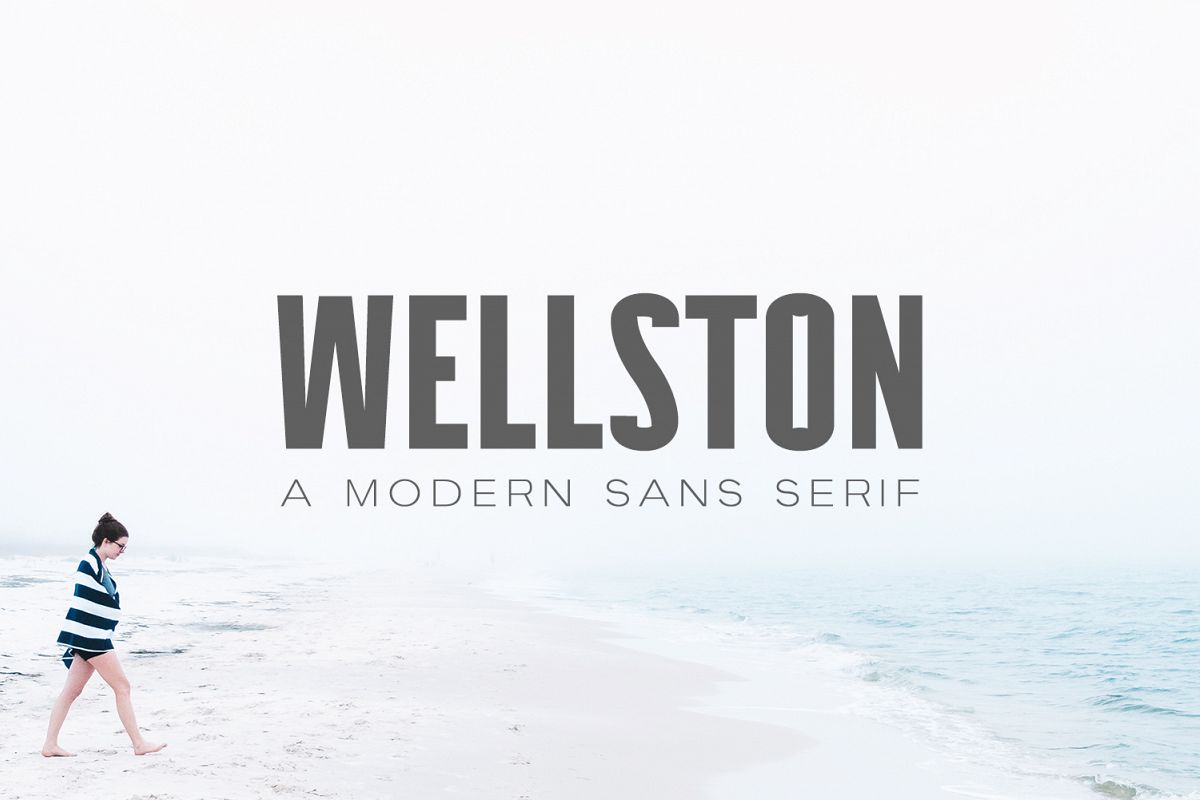
Wellston Modern Sans Serif Font Family
Wellston Modern Sans Serif Font is a strong and charming modern sans serif font. It comes with 12 beautiful weights. It will be best for logos, texts, presentations, posters, fashion, magazines, logos, branding, photography, invitations, advertisements, quotes, and other any business related. It looks gorgeous in all caps with a wide-set spacing if you want to try a classy look, or beautiful on its own in capital and lowercase letters for something completely timeless.